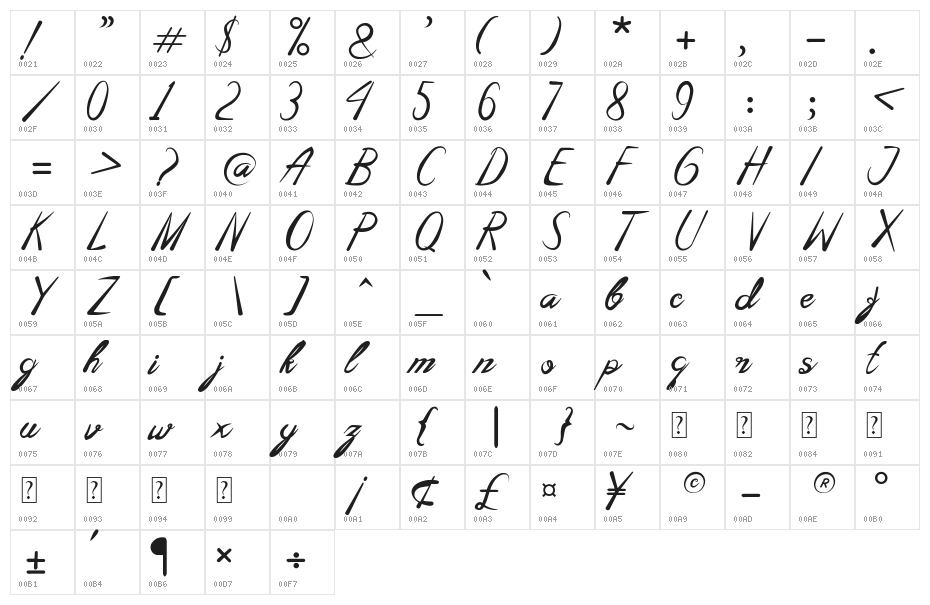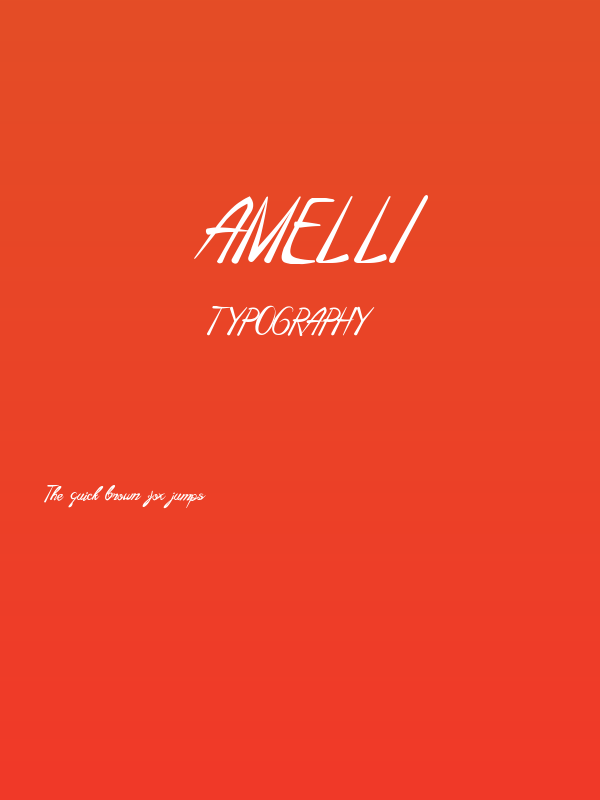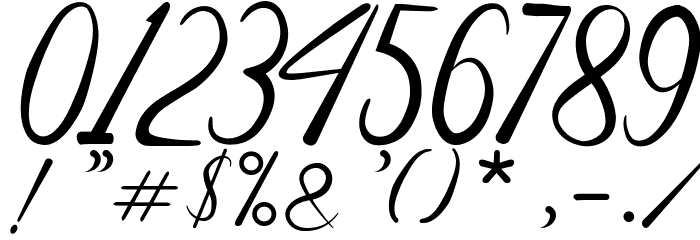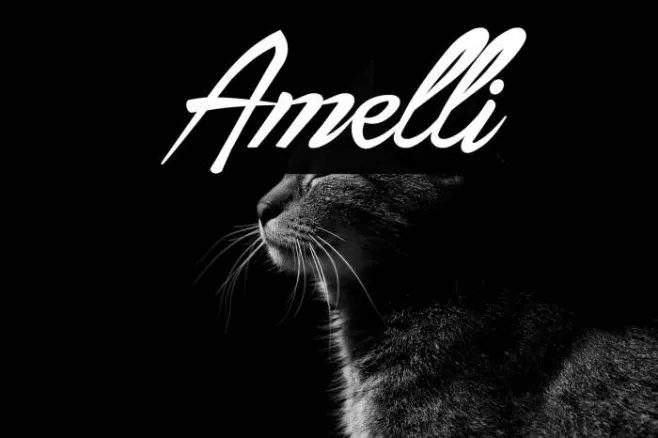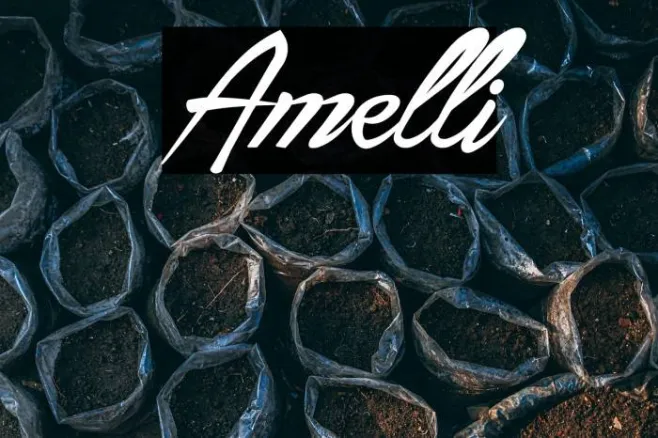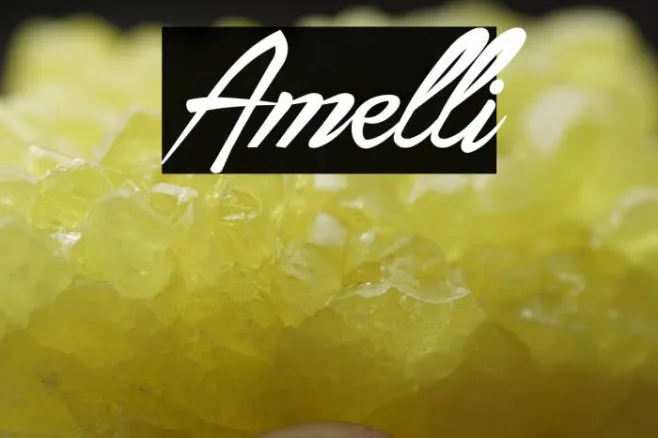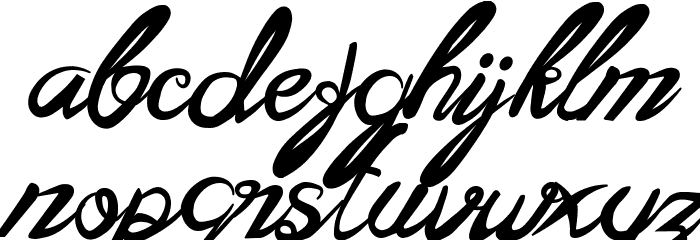
Amelli Font
Amelli Description
This font features a dynamic and fluid script style, characterized by its elegant and flowing letterforms. The uppercase letters are tall and slender, with a slight slant that adds a sense of movement and grace. The lowercase letters are more expressive, with bold strokes and intricate curves that create a lively and artistic appearance. The numerals are consistent with the overall style, maintaining the same fluidity and elegance. Special characters are well-integrated, complementing the script's aesthetic. This font is ideal for projects that require a touch of sophistication and creativity.
| Overall Style | Elegant and Artistic |